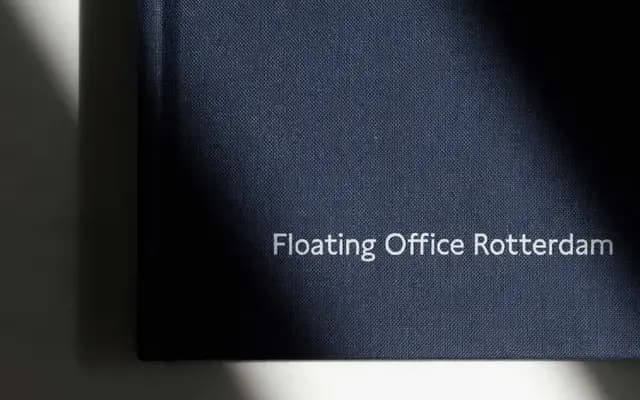
Lynstone
A British humanist sans rooted in Johnston Sans, offering a calm rhythm and open counters across five weights with a companion variable font axis.
Built in the tradition of Edward Johnston's Johnston Sans, Lynstone brings a measured, unhurried quality to text and display work alike. Its generous x-height and open counters suit both print and screen, while five weights from Light to Bold each carry a matching italic. The family ships as individual static fonts and as two variable fonts covering the full Light to Black axis, one upright and one italic.
Explicitly rooted in Edward Johnston's Johnston Sans tradition, Lynstone carries the open counters, calm rhythm and upright warmth associated with British humanist sans-serifs, tempered by a modernist sensibility in its proportions.